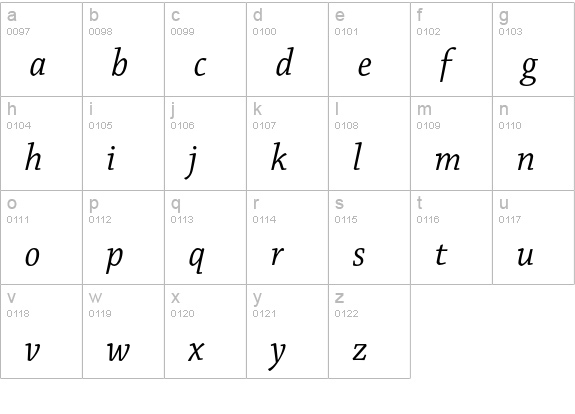
Chaparral Pro Italic Display Font Details
Chaparral Pro Italic Display is a distinctive, italic variant in the Chaparral typeface family \xE2\x80\x94 well suited to design and typography projects.
Chaparral Pro Italic Display font exudes elegance and sophistication with its sleek and modern design. This italic display typeface is perfect for adding a touch of style to your projects, whether it be for branding, advertising, or editorial purposes. The flowing curves and unique letterforms of Chaparral Pro Italic Display make it stand out and captivate the eye. Best of all, this stunning font is available for free download at FontsMarket.com. Now you can elevate your designs with this beautiful typeface without any cost. Don't miss out on the opportunity to enhance your creative work with Chaparral Pro Italic Display font today!